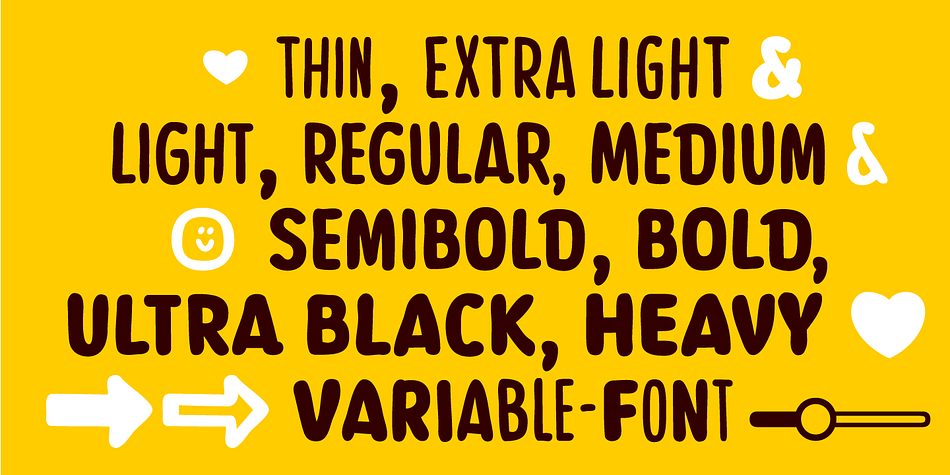
Banana Bread Variable
Designed by Manuel Viergutz, Banana Bread Variable is a hand display font family published by Typo Graphic Design.
The variable Sans Serif typeface Banana Bread is designed from 2024 for the font foundry Typo Graphic Design by Manuel Viergutz.
9 font-styles (Thin, Extra Light, Light, Regular, Medium, SemiBold, Bold, Ultra Black, Heavy) with 628+ glyphs (Adobe Latin 3) incl. decorative extras like icons, arrows, catch words, dingbats, emojis, symbols, geometric shapes (type the word #LOVE for ❤ or #SMILE for ☺ as OpenType-Feature dlig) and stylistic alternates (2 stylistic sets).
For use in logos, packaging for drinks & food, magazines, posters, advertisement plus as webfont for decorative headlines. The font works best for display size.
Saftig, teigig, sloppy, organisch wie ein schönes Stück
herrlich lecker süß duftendes Bananenbrot *mampf* *yummy*
■ Font Name: Banana Bread
■ Font Cate­gory: Variable Sans Serif for head­line size
■ Specials: Capital Letter Sharp S (German Versal Eszett U+1E9E) ẞ, Catchwords like FOR, Emojis like Smiley ☺ ☻, Symbols like Heart ♥︎, Variable Sans Serif Font